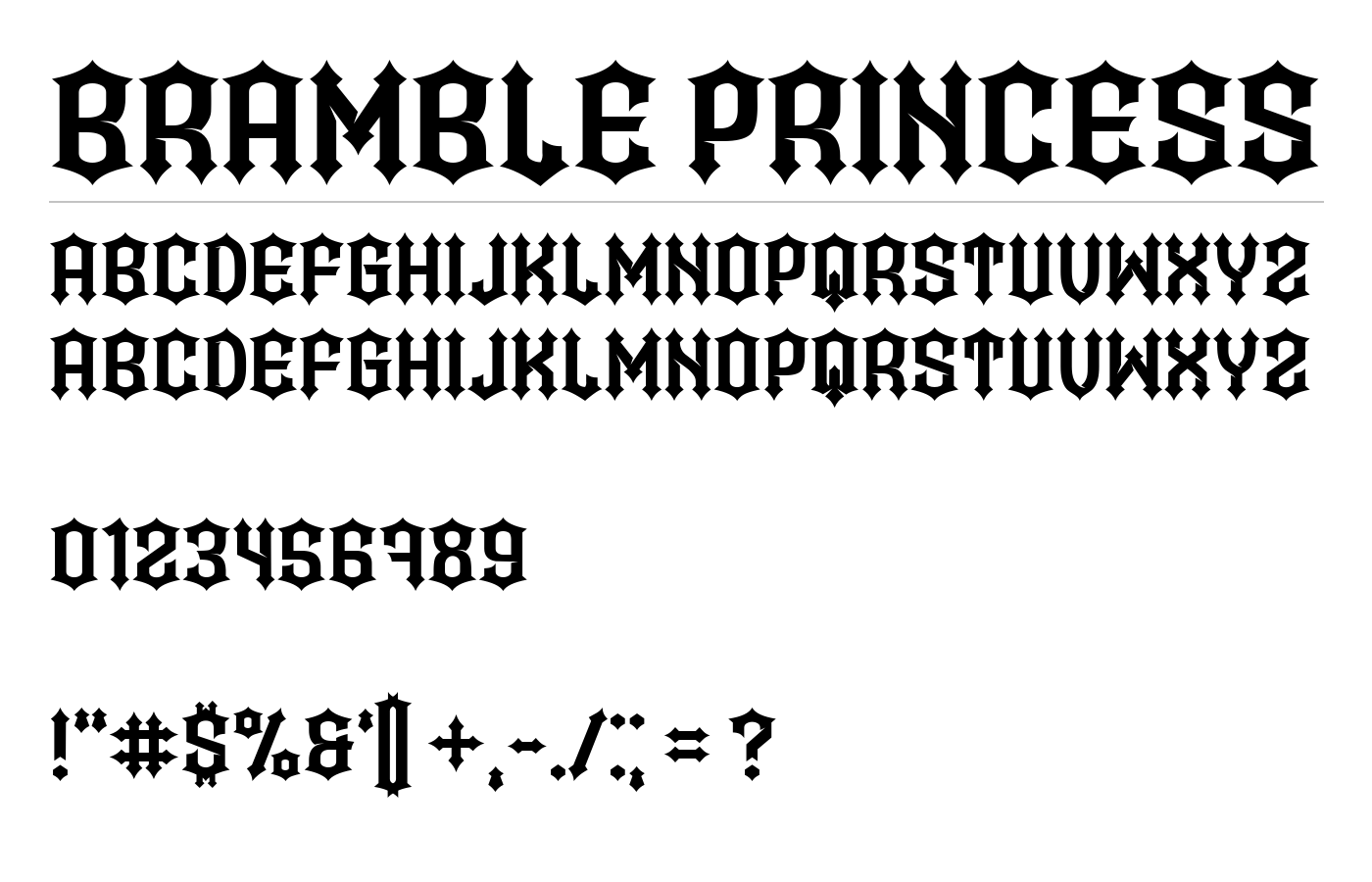
Bramble Princess is a bold, blackletter-inspired display font with sharp, dramatic strokes and strong contrast that evoke a gothic, medieval vibe. Its condensed, uppercase-only style and ornamental, diamond-shaped details make it perfect for striking headlines, logos, or branding that demands a powerful, vintage, and edgy character. This font works best where attention-grabbing and decorative flair are key, such as posters, fashion labels, or themed packaging.
Bramble Princess Font
About Bramble Princess Font